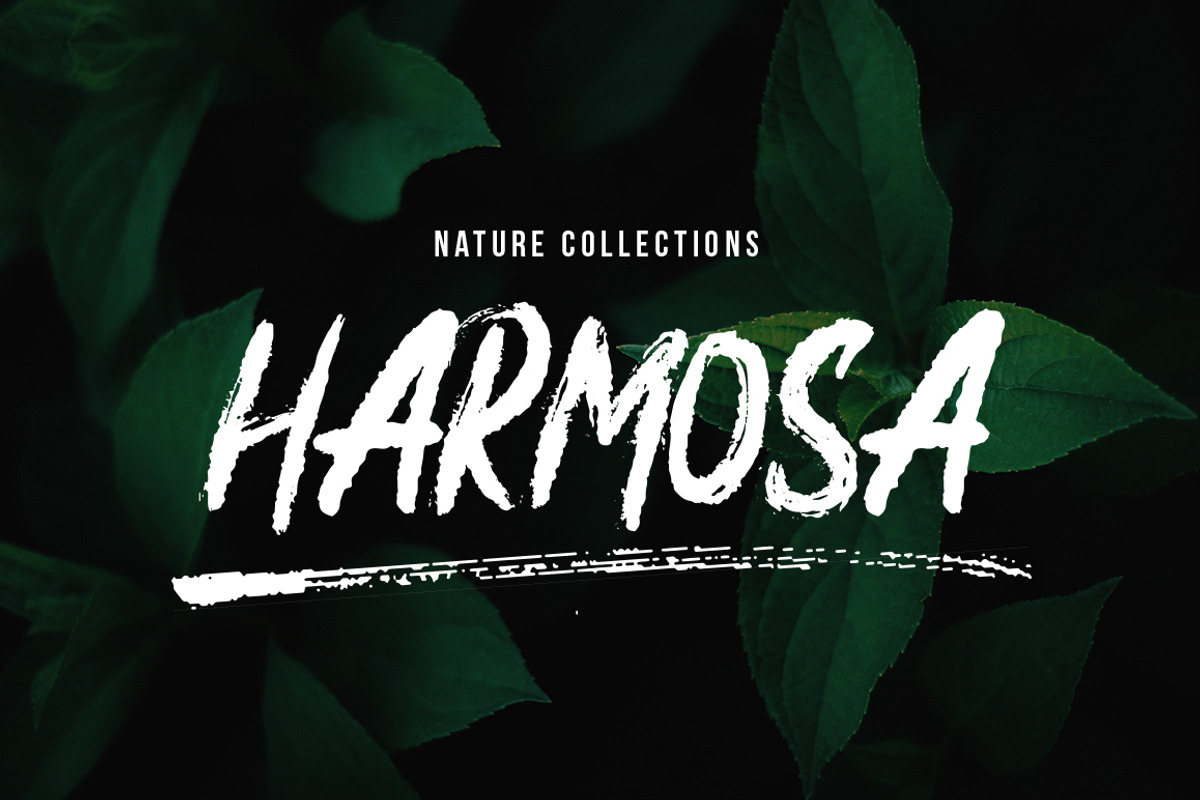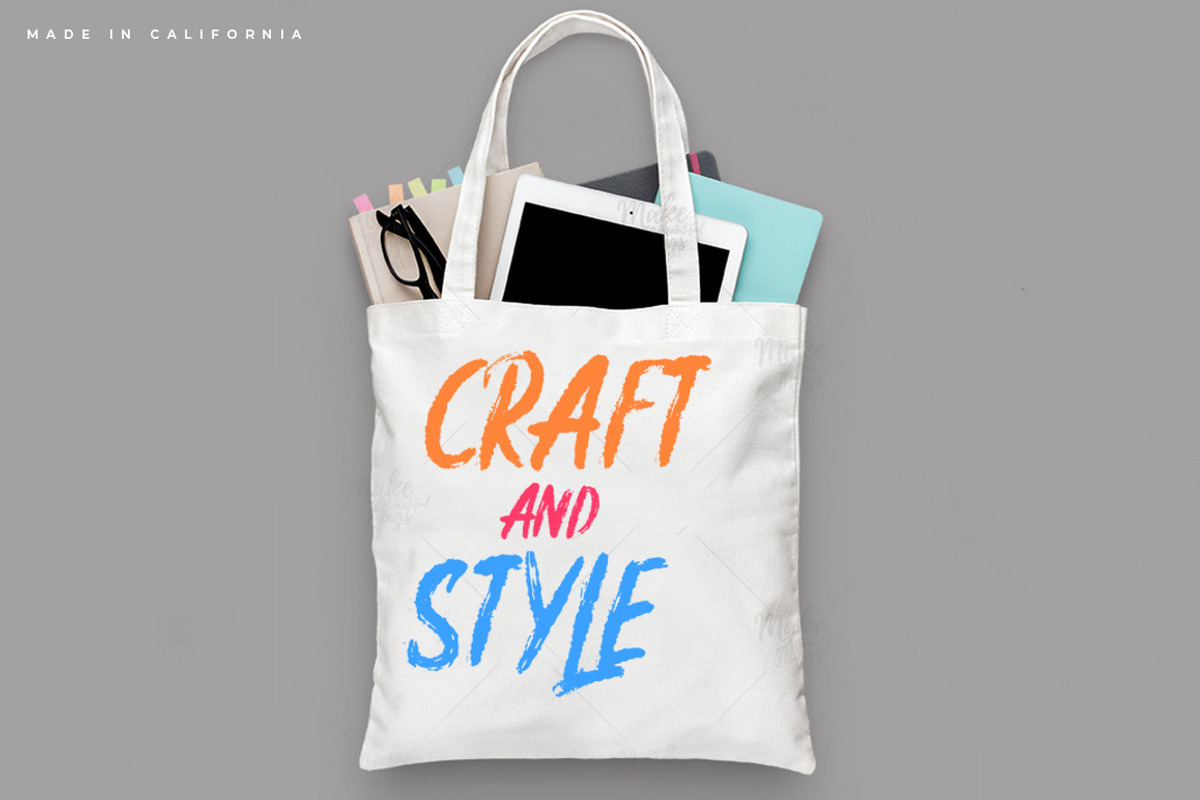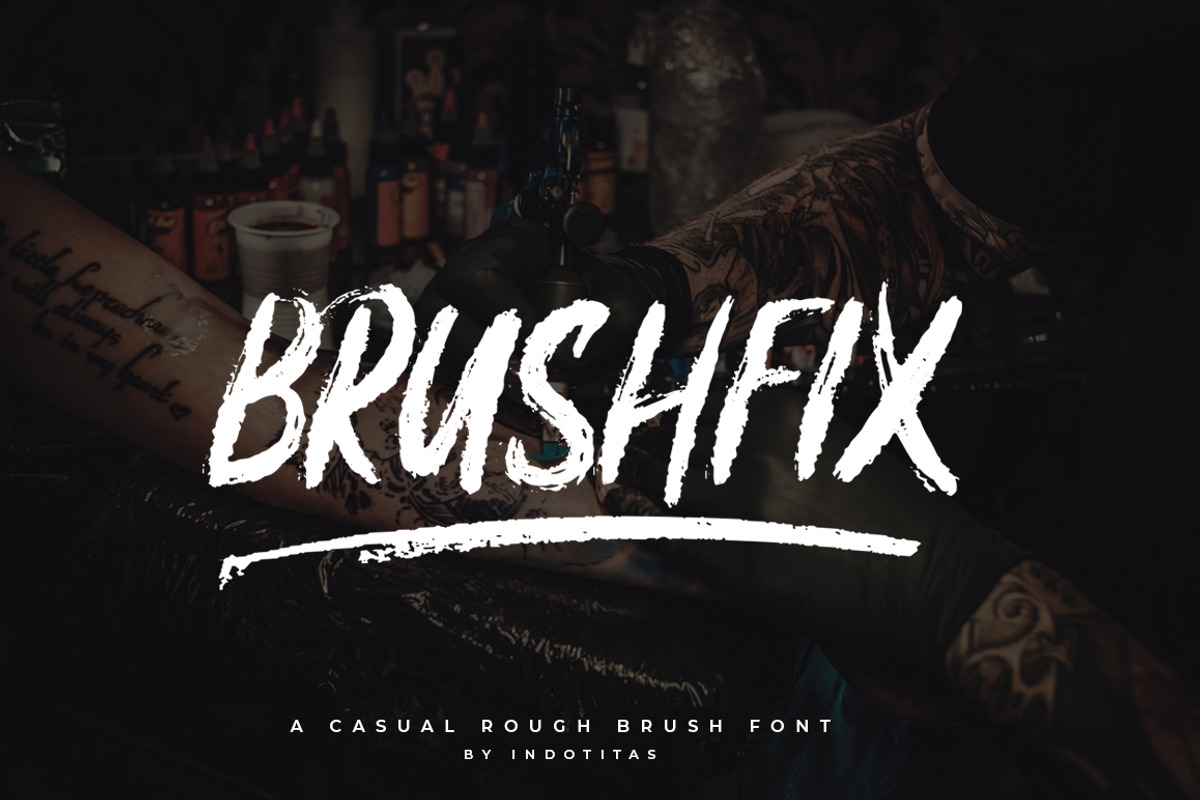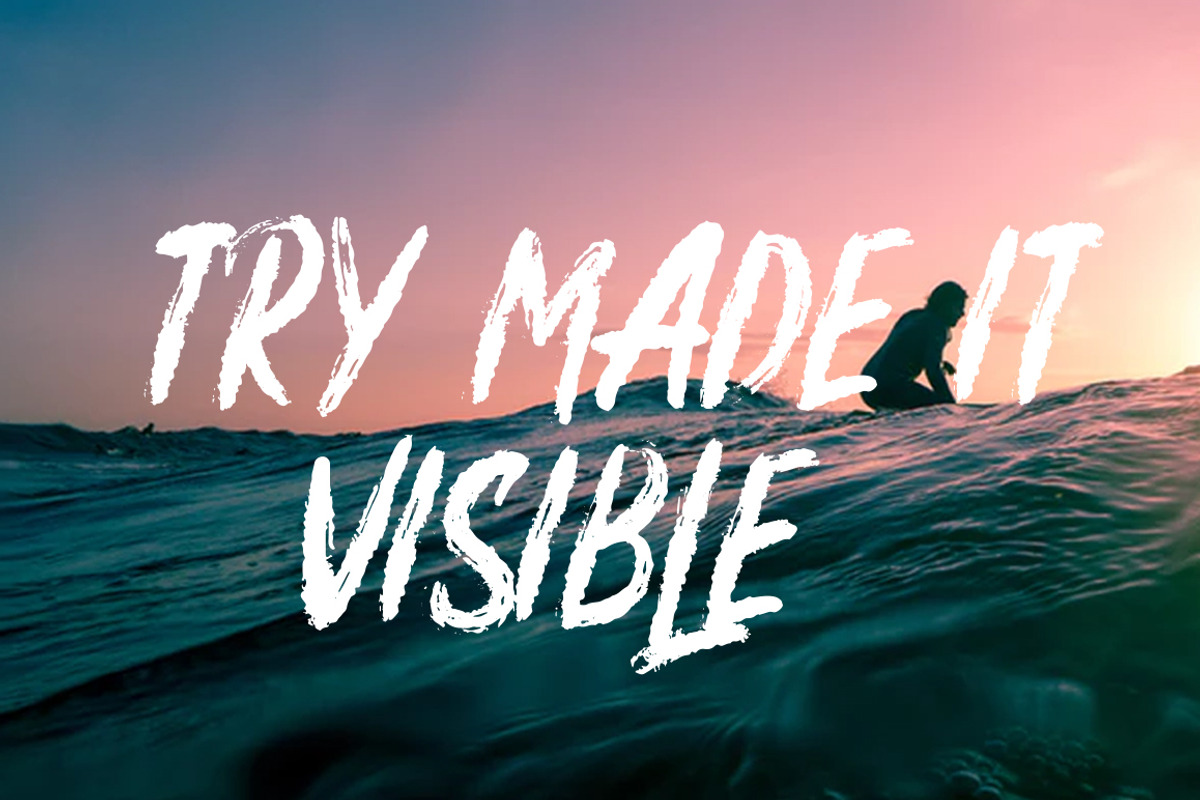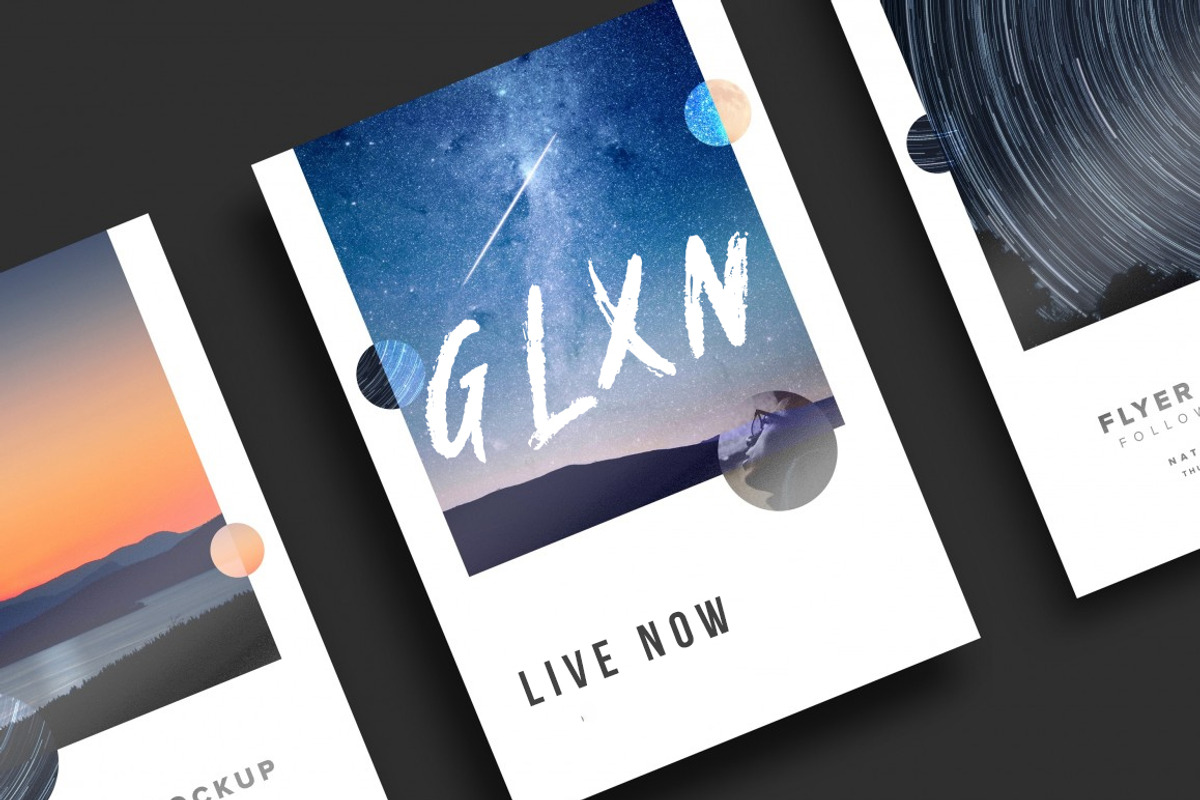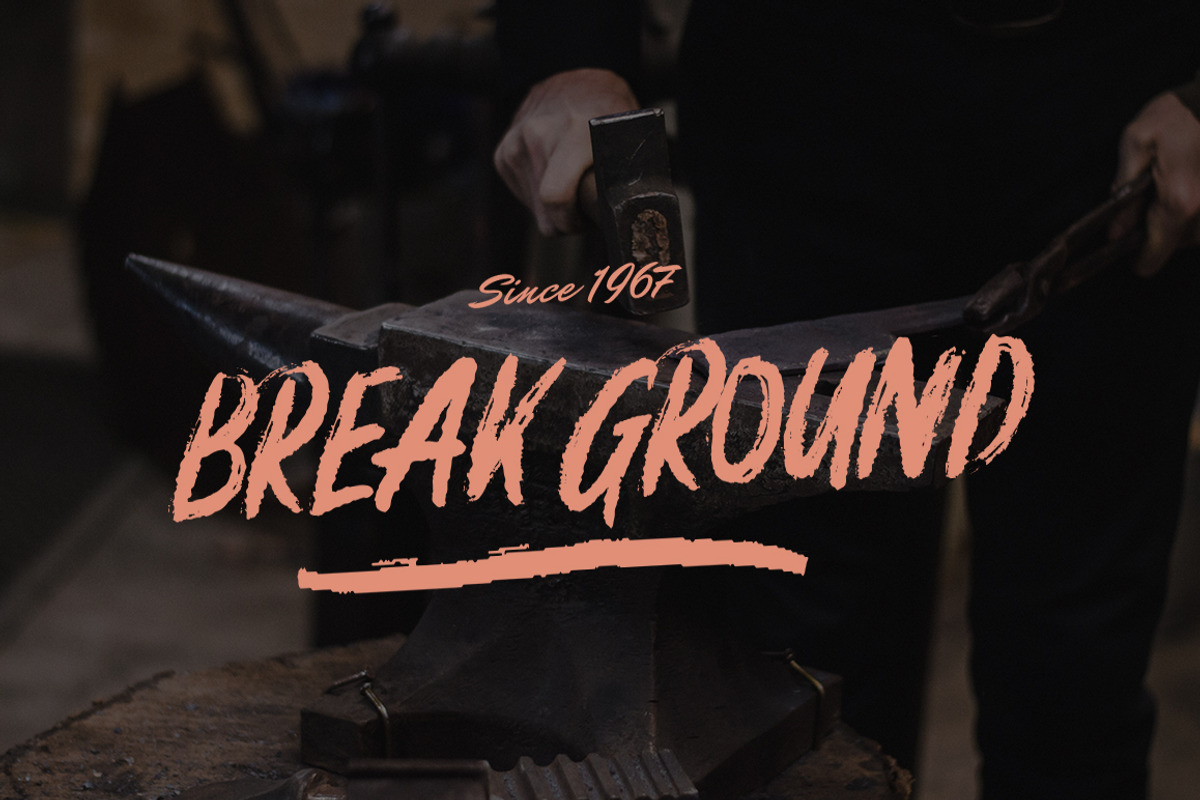
Brushfix Font
Brushfix font is a rough brush font with a clear style and good flow This font is great for your next creative project such as Logotype, printed quotes, invitations, cards, product packaging, headers, Letterhead, Poster, Apparel Design, Label, and etc.
Why Brushfix Font is worth a look
Brushfix Font by Indotitas fits naturally into Branding, posters, packaging, typography.